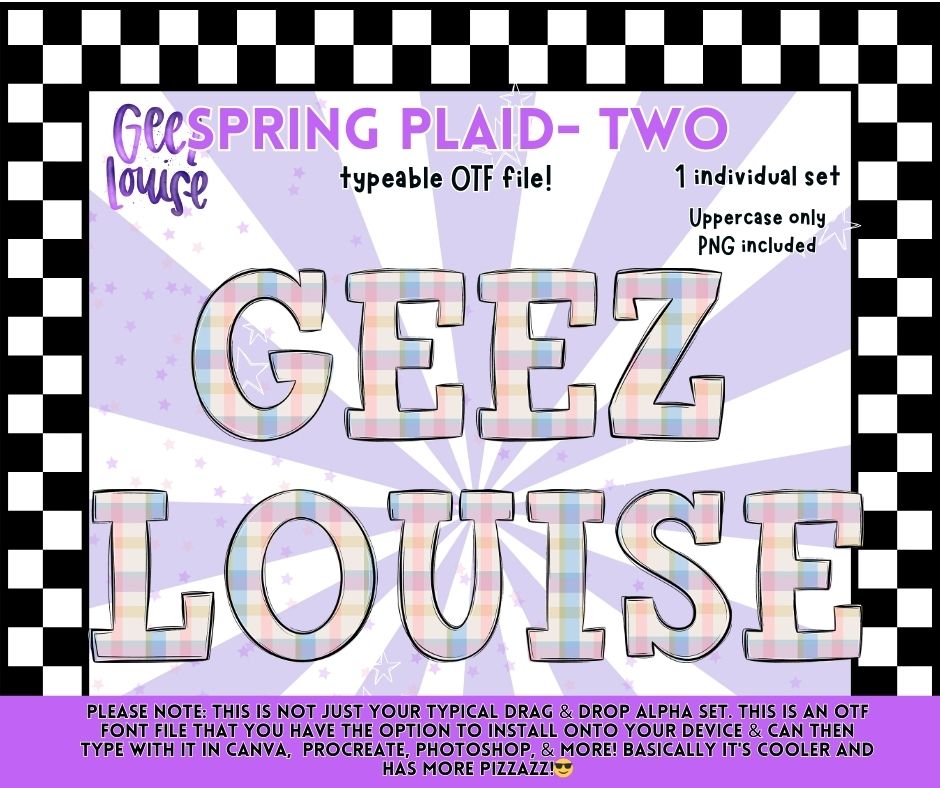
Spring Plaid Two OTF Font | Uppercase Typeface + PNG | Pastel Plaid Alphabet
Meet Spring Plaid Two — a pastel plaid alphabet with soft spring tones and a fresh, airy look 🌸
Perfect for spring designs, Easter projects, kids apparel, boutique graphics, and cozy seasonal creations with a light, cheerful feel.
• Uppercase letters only
✔️ Soft plaids with a polished, professional finish